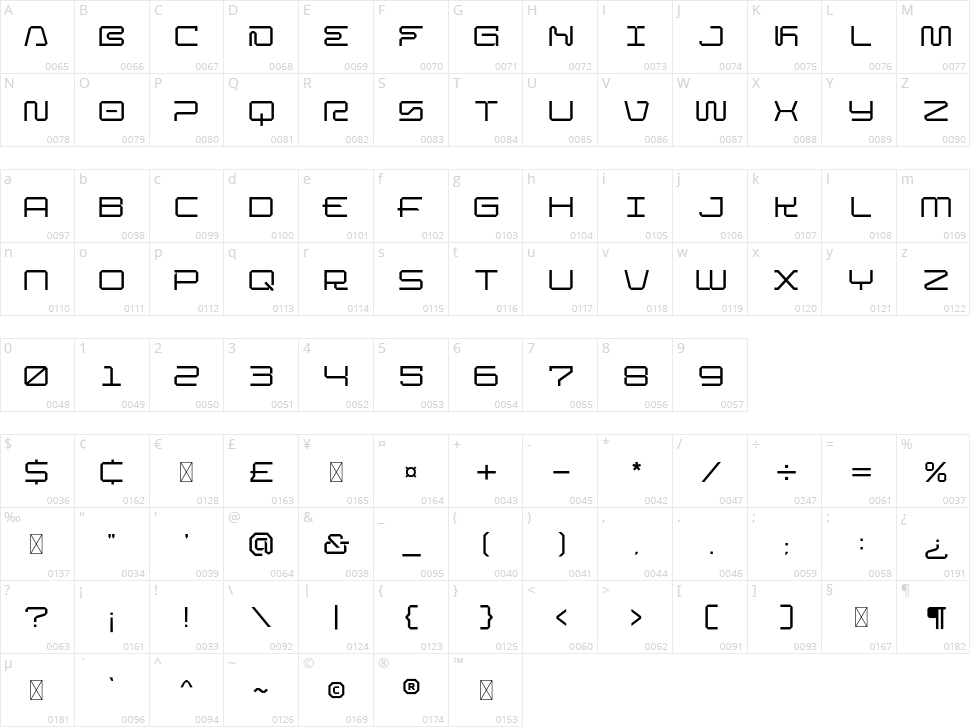
Modern typeface with clean lines and sharp angles gives it a techno-futuristic look. Versatile and stylish choice for any design project that requires a high-tech edge.